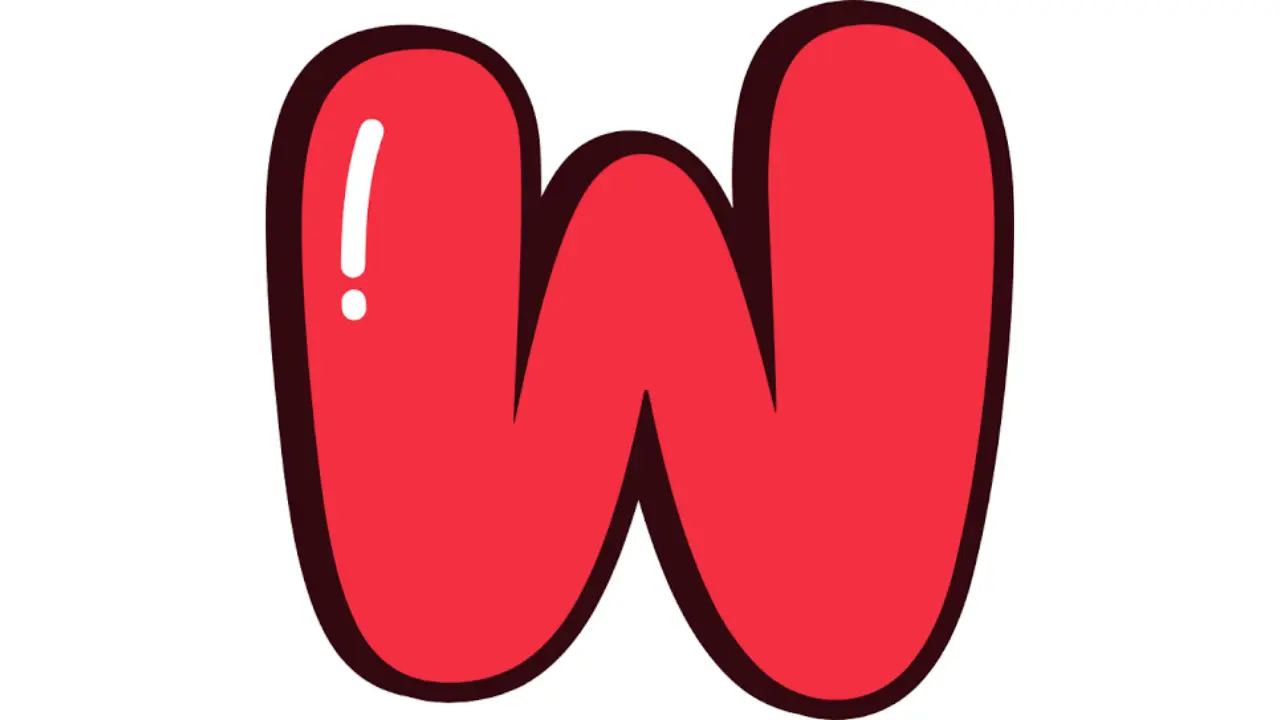
W In Bubble Letters Draw, Style, And Decorate It
Learning how to draw w in bubble letters is a fun way to make ordinary writing look bold, playful, and creative. Bubble lettering turns a simple letter into a thick, rounded design that can stand out on posters, notebooks, greeting cards, school projects, and digital artwork.
The letter W can look slightly harder than round letters because it contains several sharp angles. However, you can easily turn those angles into smooth curves with a few basic drawing techniques. You do not need advanced art skills or expensive supplies to get started.
What Does W in Bubble Letters Mean?
Bubble letters are large letters with thick, soft, and rounded outlines. Instead of writing a normal W with thin lines, you create a wider shape around it and make its corners smooth.
A w in bubble letters can have many different styles. Some designs look simple and clean, while others include shadows, highlights, patterns, or colorful decorations.
Bubble lettering is popular because it gives artists plenty of freedom. There is no single correct shape. You can make the W wide, narrow, tall, short, puffy, or even cartoon-like.
How to Draw W in Bubble Letters Step by Step
Drawing a bubble W becomes much easier when you build the shape slowly. Start with a pencil because you may need to erase some guidelines.
First, lightly draw a normal capital W. Make it larger than your usual handwriting so you have enough room to create the bubble effect.
Next, draw thick rounded lines around the original letter. Avoid making the corners too sharp. Curve the points gently so the W starts looking soft and inflated.
Connect the outer lines carefully. Make sure both sides have roughly the same thickness. You can then erase the original W and any extra pencil marks inside the design.
Finally, trace the outline with a dark pen or marker. Your basic bubble W is now ready for coloring and decoration.
Simple Capital W Bubble Letter
A capital W works especially well for bubble lettering because its large structure gives you plenty of space to decorate.
Start by making the upper parts of the W broad and rounded. The lower points should also have smooth curves rather than narrow, sharp tips.
When creating a capital w in bubble letters, try to maintain equal spacing throughout the shape. Uneven thickness can make the letter appear unbalanced.
Beginners should keep their first designs simple. Once you understand the basic structure, you can experiment with more detailed styles.
Lowercase Bubble Letter W
A lowercase w gives you another interesting style to explore. It usually looks softer and more relaxed than an uppercase version.
Write a lowercase w lightly with a pencil. Then build a thick outline around it. Round every corner and avoid narrow gaps between the sections.
Lowercase bubble lettering works well for names, notebook headings, handmade cards, and casual designs. You can also combine lowercase and uppercase bubble letters to create unique typography.
Creative Styles for W in Bubble Letters
Once you understand the basic shape, you can experiment with different artistic styles. Small changes can completely transform your letter.
For example, you can create a 3D w in bubble letters by adding lines behind one side of the original design. Connect these lines and shade the new area to create depth.
You can also add a shadow. Draw a darker area slightly below or beside the letter. A simple shadow can make the W appear as if it is floating above the page.
Another option is a graffiti-inspired W. Make the shape wider and more dramatic, then add outlines, small decorative marks, or background elements.
Ideas for Decorating a Bubble W
Color is one of the easiest ways to make bubble lettering more attractive. You can fill the entire W with one bright color or combine several shades.
Patterns also work well inside large letters. Try adding stripes, dots, stars, hearts, waves, checks, or small geometric shapes.
For a softer design, use pastel colors and simple highlights. For a bold design, use strong outlines and contrasting shades.
You can even create themed designs. A winter W could include snowflakes, while a nature-inspired W might contain leaves and flowers.
How to Add a 3D Effect
A 3D effect can turn a simple bubble letter into a more professional-looking illustration. Fortunately, the technique is easier than it appears.
First, finish your basic w in bubble letters outline. Next, draw short diagonal lines extending from the same side of several edges.
Connect the ends of those lines to create an additional layer behind the W. Shade this layer darker than the front of the letter.
You can also place a small white highlight near the upper part of the W. Highlights make bubble letters appear shiny and rounded.
Final Thoughts
Drawing w in bubble letters is an easy creative activity that can improve your lettering and design skills. Start with a basic W, build a thick rounded outline, and then experiment with colors, patterns, shadows, and 3D effects.
With regular practice, you can create everything from simple classroom lettering to detailed artistic designs. Once you master w in bubble letters, you can apply the same techniques to other letters and eventually create a complete bubble-letter alphabet.